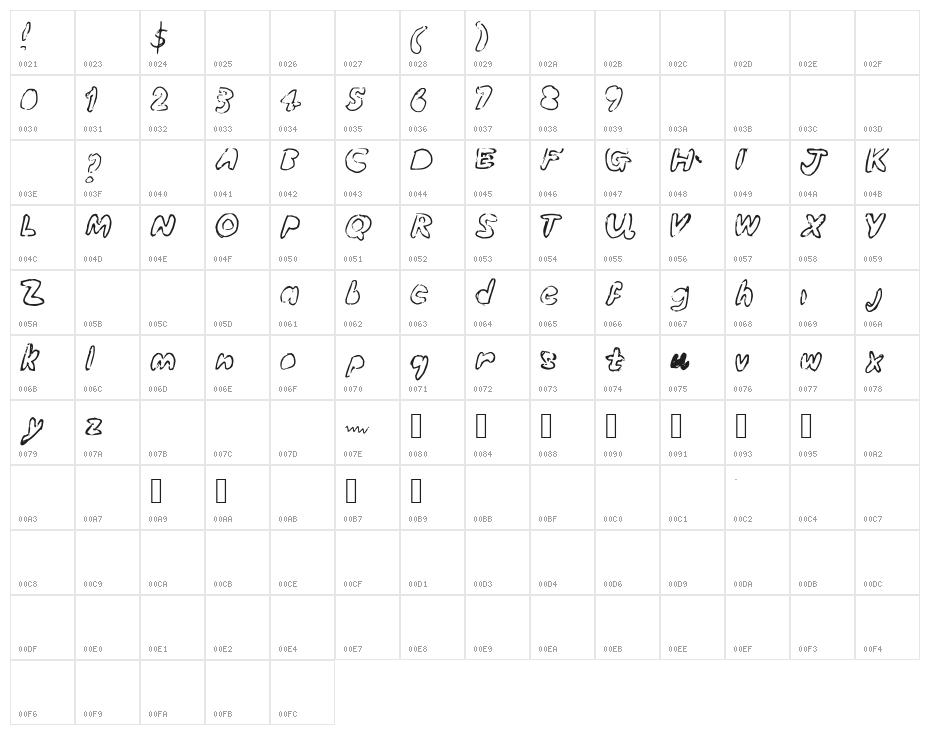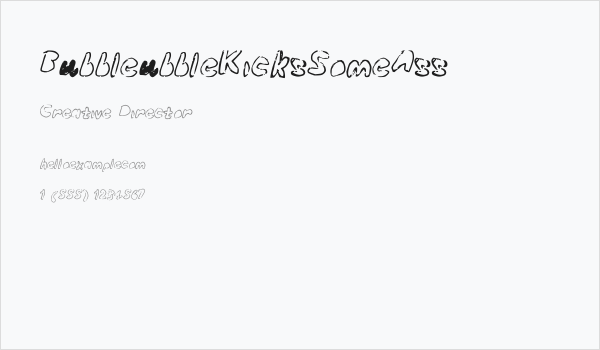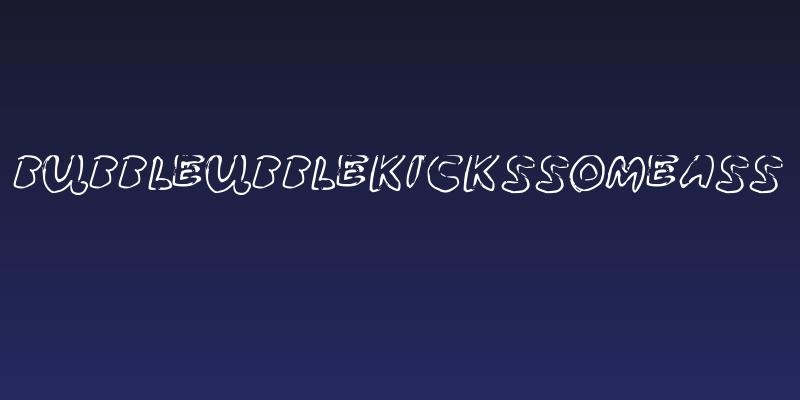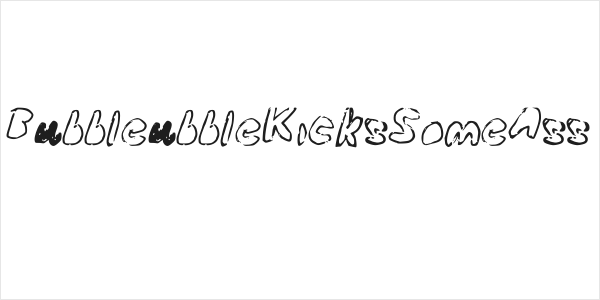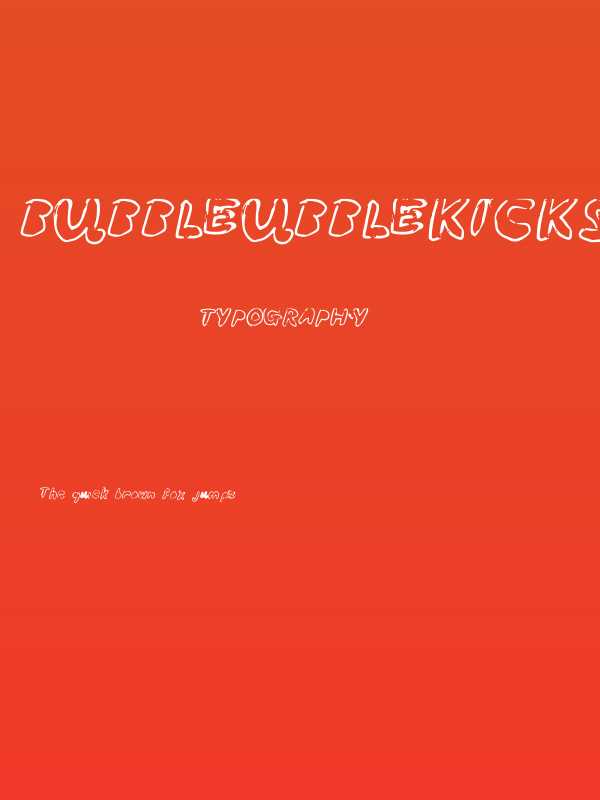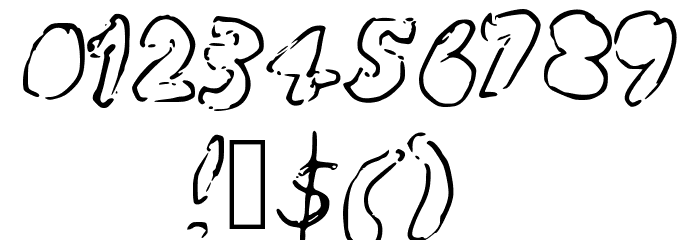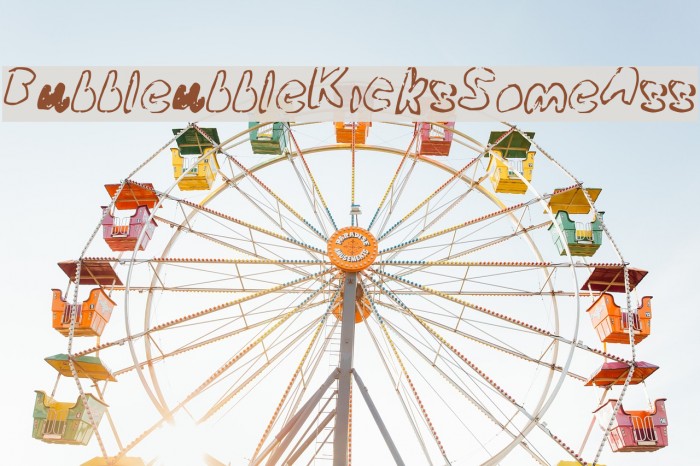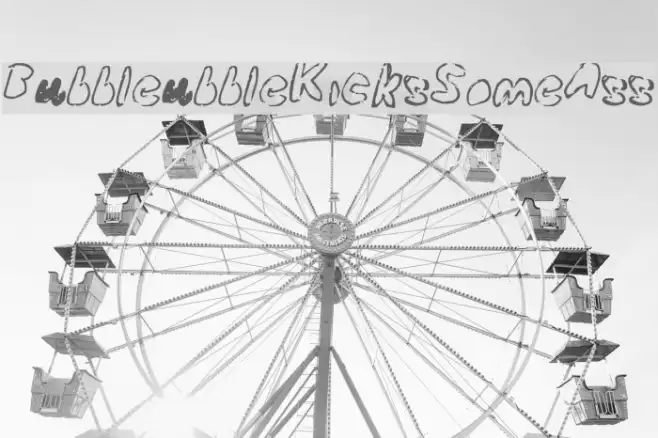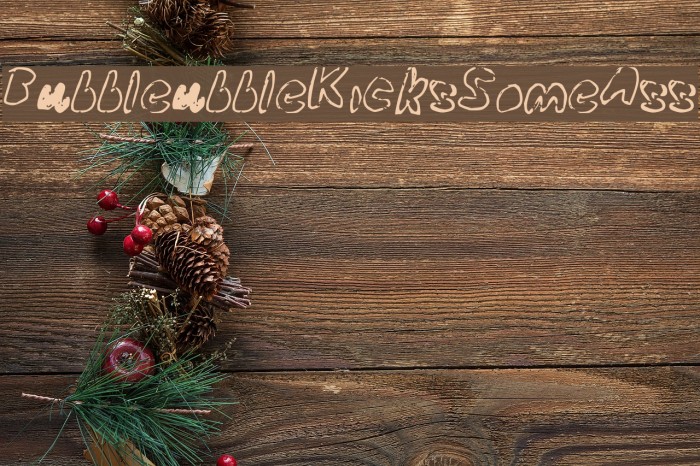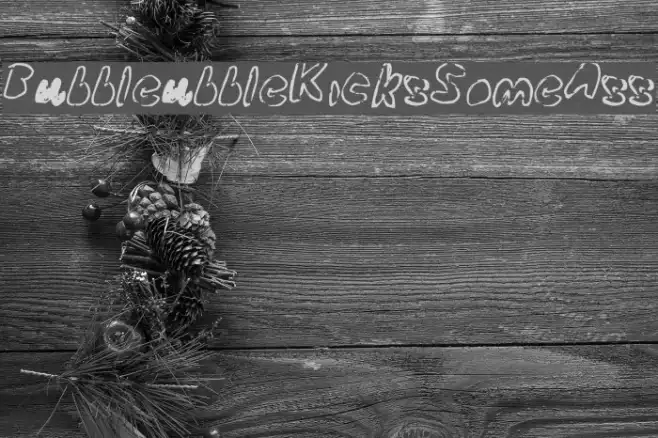
BubbleubbleKicksSomeAss Font
BubbleubbleKicksSomeAss Description
This font features a playful and dynamic style with a hand-drawn appearance. The characters are bold and slightly irregular, giving them a lively and energetic feel. The strokes are thick with a rough texture, suggesting a casual and informal tone. The uppercase and lowercase letters maintain a consistent style, while the numbers and special characters complement the overall design. This font's unique and artistic flair makes it stand out, ideal for projects that require a fun and engaging aesthetic.
| Proposed Projects | Ideal for children's book covers, playful branding, informal invitations, and creative posters. |